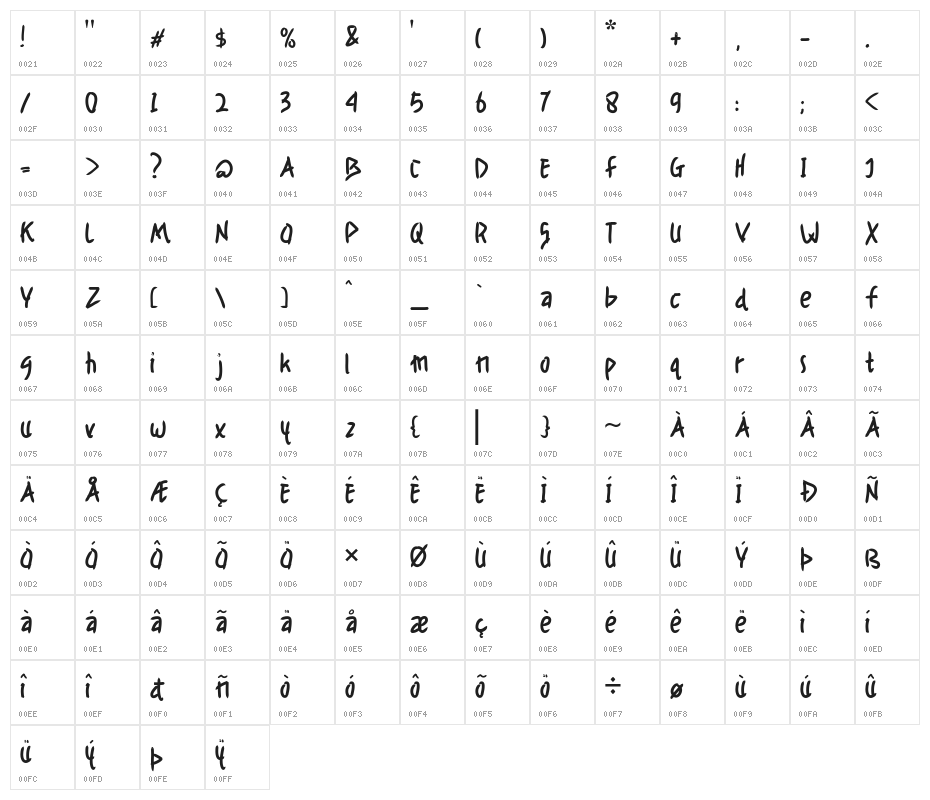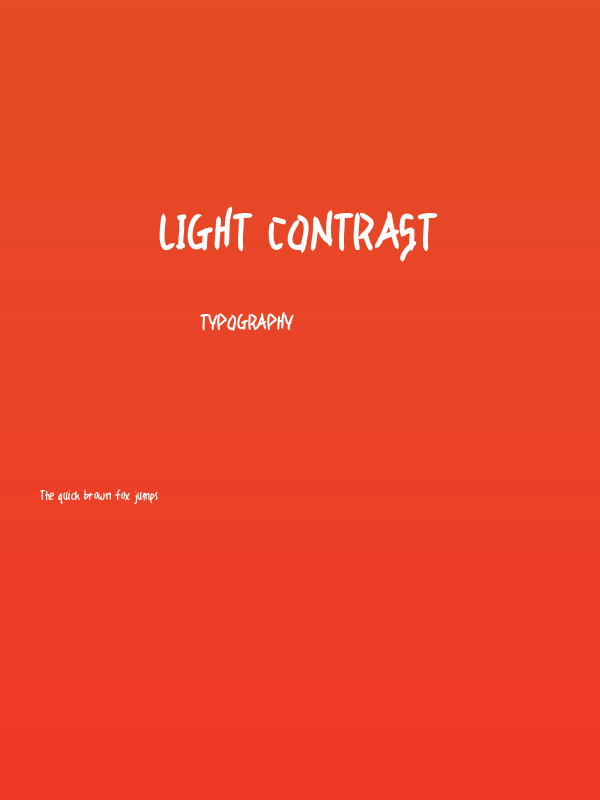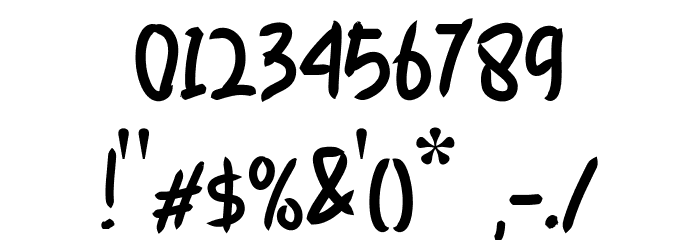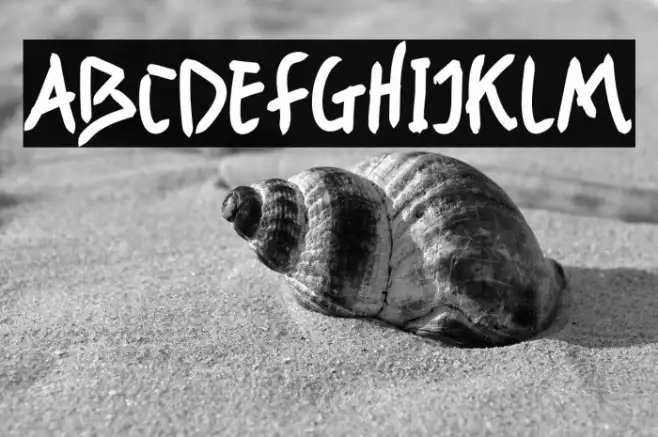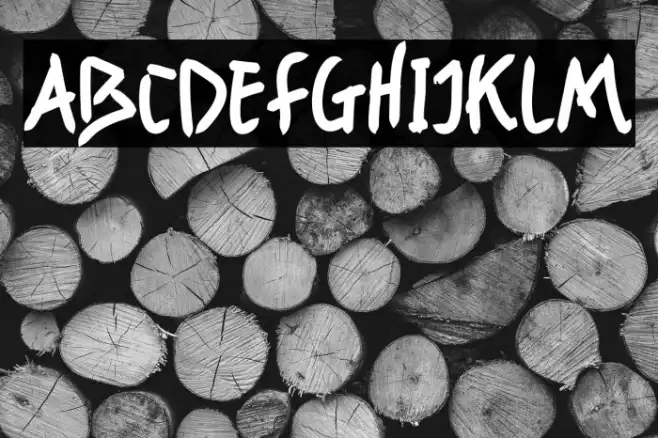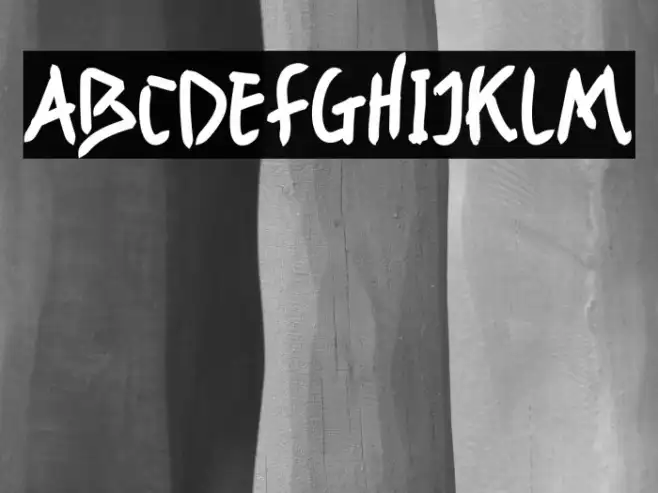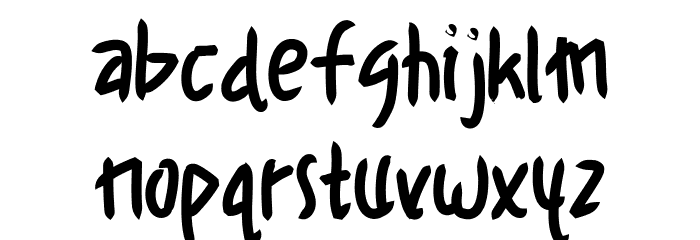
Light contrast Font
Light contrast Description
This font exhibits a bold and expressive handwritten style, characterized by its dynamic and energetic strokes. The letters are slightly irregular, giving it a personal and informal touch. The uppercase and lowercase letters maintain a consistent flow, while the numbers and special characters integrate seamlessly with the overall design. The strokes vary in thickness, providing a lively and spontaneous appearance. This font is ideal for projects that require a casual and approachable aesthetic, such as invitations, greeting cards, or creative branding.
| Overall Style | Casual, Expressive |
| Proposed Projects | Ideal for invitations, greeting cards, creative branding, and informal designs. |